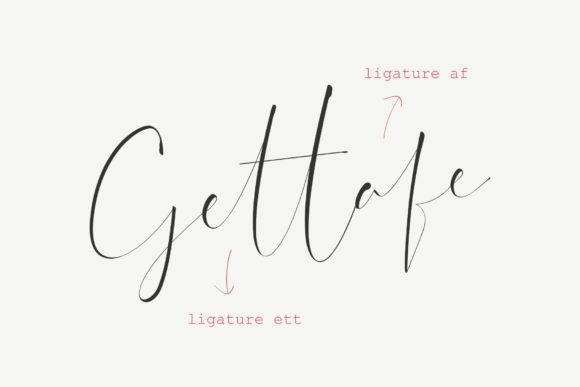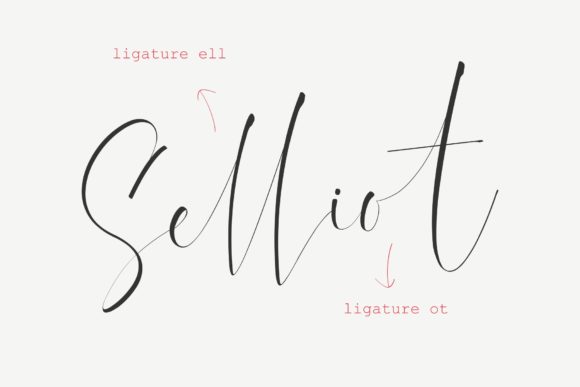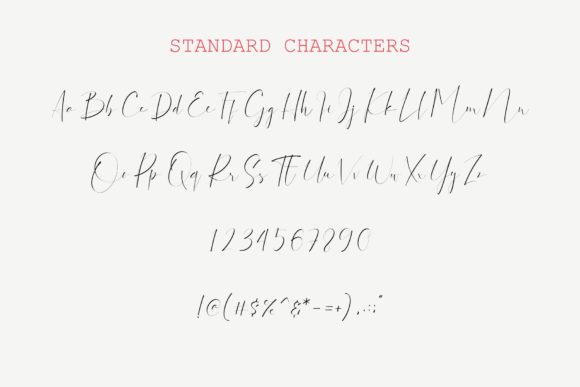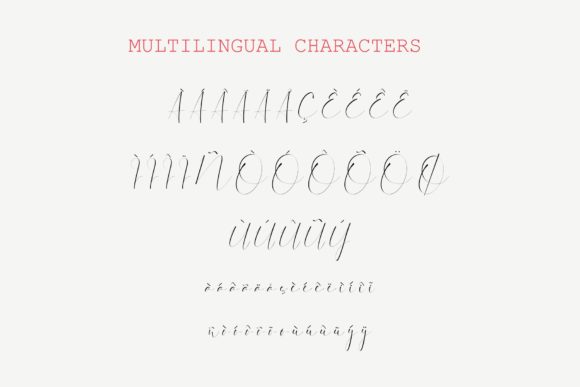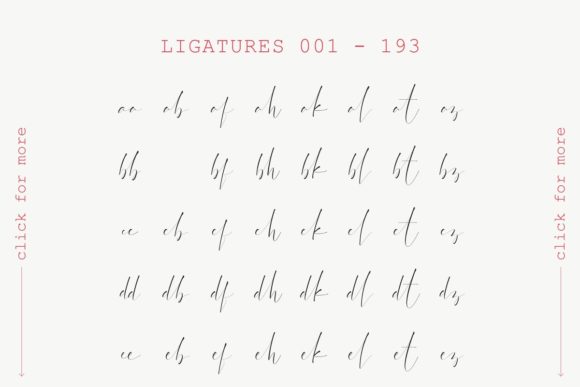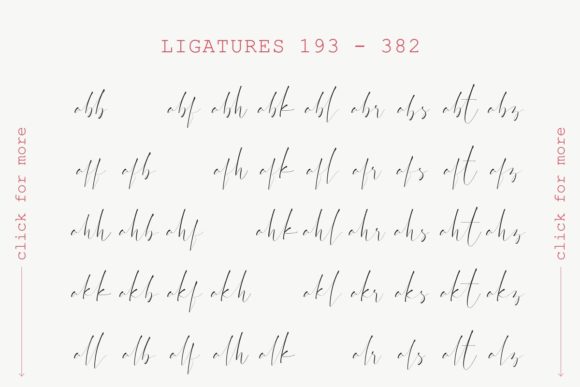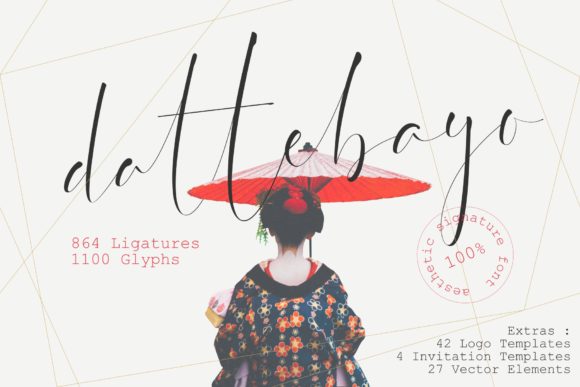
Dattebayo Font: Elevate Your Designs with Elegance and Sophistication
Are you a designer or crafter looking for a font that exudes luxury and sophistication? Look no further than the Dattebayo Font! This aesthetic signature font is designed to take your designs to the next level with its thin, elegant letters and extensive range of ligatures and extras.
What is Dattebayo Font?
The Dattebayo Font is a carefully crafted font that boasts a unique and luxurious feel, perfect for designers and crafters who want to add a touch of elegance to their work. With its slender letters and flowing curves, this font is sure to make your designs stand out from the crowd.
Key Features of Dattebayo Font
- Thin Elegant Letters: The Dattebayo Font features thin, elegant letters that will give your designs a luxurious feel.
- Ligatures and Extras: This font comes with lots of ligatures and extras, allowing you to add a personal touch to your designs.
Why Choose Dattebayo Font?
- Unique and Luxurious Feel: The Dattebayo Font has a unique and luxurious feel that will set your designs apart from the rest.
- Versatility: The Dattebayo Font is versatile and can be used for a wide range of design projects, from logos and invitations to branding and packaging.
- Experiment with Ligatures: The Dattebayo Font comes with lots of ligatures, so don’t be afraid to experiment and find the perfect combination for your design.
- Font Style: Thin, Elegant
- Ligatures: Yes, lots of ligatures included